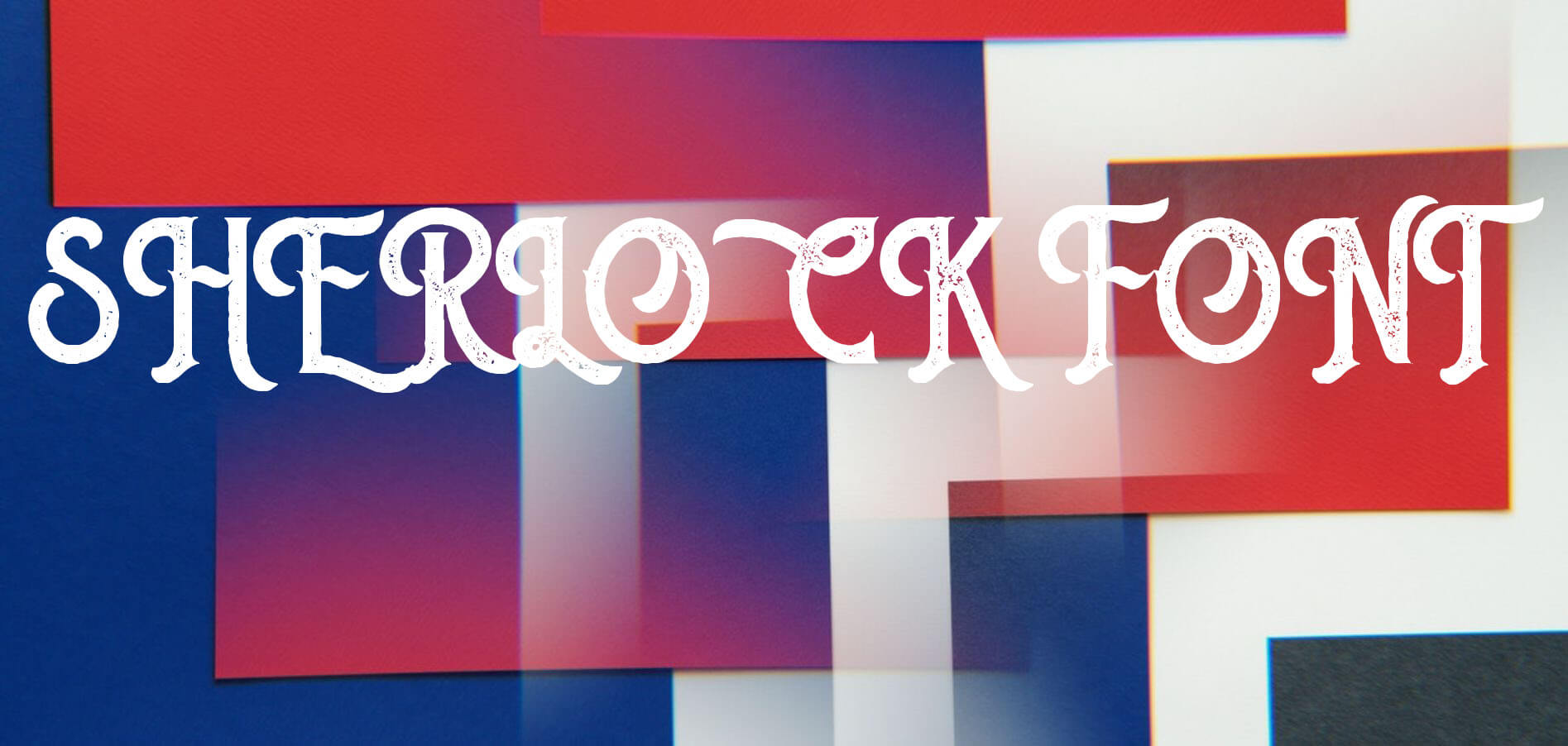
Sherlock is a new attractive font that is belonging to the Display typeface family. This font was designed and shared by DikasStudio. This font family contains three styles including Clean, Rough, and Press. This can supports OpenType features as well huge languages supports.
Sherlock has 3 fashions: Smooth, difficult & press, with the hand-drawn person and OpenType typeface like United Sans Font function it’s very helpful to get the antique layout.
Sherlock Font Family